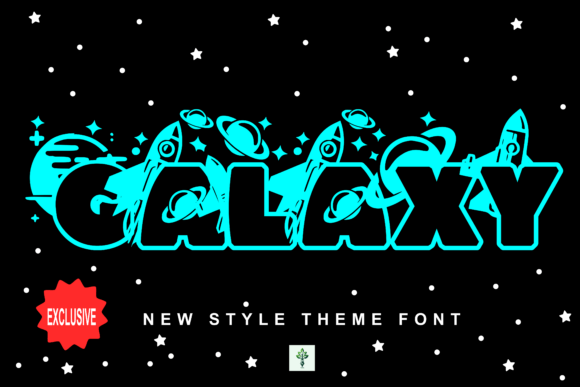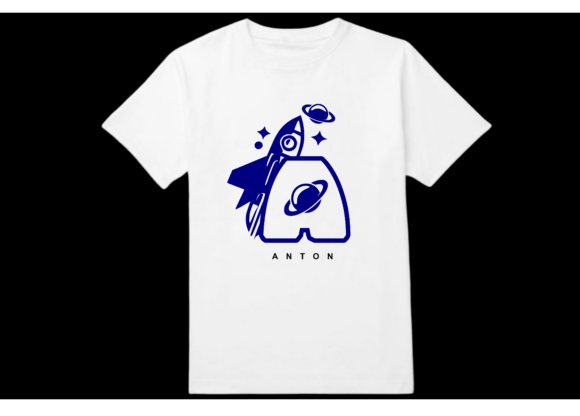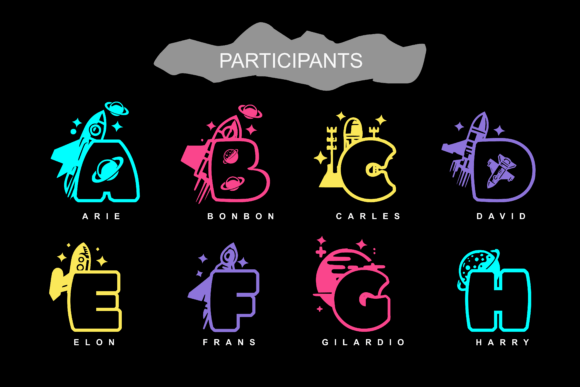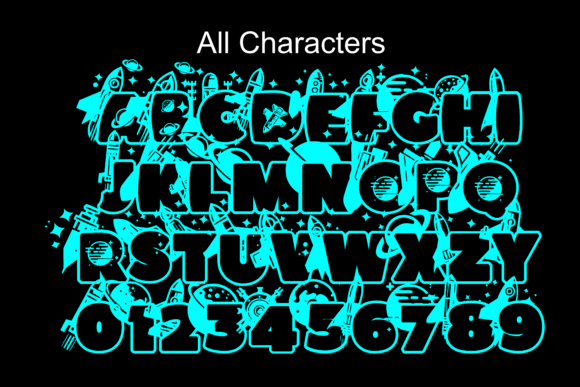
Unlock the Magic of Galaxy Font
Have you ever found yourself scrolling through a design portfolio, mesmerized by a project that exudes an undeniable charm and charisma? That’s the power of a well-crafted font – one that can elevate a design from ordinary to extraordinary. For designers seeking to infuse their creations with a unique, sun-kissed essence, look no further than the Galaxy Font.
This expertly devised font is designed to transport your projects to a world of warmth and vibrancy, where the carefree spirit of summer reigns supreme. By incorporating the Galaxy Font into your designs, you’ll be able to tap into its symbolic energy and breathe new life into your projects. Whether you’re a seasoned designer or just starting out, the Galaxy Font is an invaluable asset that will help you take your work to new heights.
Galaxy Font Key Features
- Font Family: Galaxy Font is a sans-serif font family designed for use in digital applications, including mobile and web interfaces.
- Resolution: Galaxy Font is designed to be highly legible at high resolutions, making it ideal for use in high-resolution displays such as Retina displays.
- Unique Characteristics: Galaxy Font features a unique blend of geometric and organic shapes, giving it a distinctive and modern aesthetic.
- Language Support: Galaxy Font supports a wide range of languages, including Latin, Cyrillic, Greek, and many others, making it a versatile choice for global applications.
Galaxy Font Review
When I first laid eyes on Galaxy Font, I was blown away by its unique, cosmic design ✨. The combination of geometric shapes and fluid lines creates a truly out-of-this-world aesthetic. The font’s versatility shines through in its various styles, from bold and playful to elegant and sophisticated.
- ✨ Unique design that sets it apart from other fonts
- ✨ Versatile and adaptable to various styles and applications
- ✨ Excellent for creating eye-catching headlines and titles
However, there are some limitations to consider ⚠️. The font’s complexity can make it difficult to read at smaller sizes, and some characters may not be as smooth as others. Additionally, the font’s extraterrestrial feel may not be to everyone’s taste.
Limited Editions
- ⚠️ May not be suitable for body text due to readability issues
- ⚠️ Some characters may not be as refined as others
Overall, Galaxy Font is a stunning addition to any designer’s toolkit. While it may not be perfect, its bold personality and versatility make it a great choice for anyone looking to add some cosmic flair to their designs.
Use Galaxy Font for titles, headings, and emphasis in your designs.
Combine Galaxy Font with other fonts to create a unique and visually appealing typography style.
Experiment with different font sizes and styles to add depth and hierarchy to your text elements.
Galaxy Font is ideal for:
Sci-fi and futuristic designs
Space-themed projects
Modern and minimalist designs
Creating a sense of depth and dimensionality in your text elements
Alternatives to Galaxy Font
Montserrat is a sans-serif font that is highly legible and versatile. It is suitable for digital and print materials, such as websites, magazines, and advertisements. Montserrat is more geometric and modern compared to Galaxy Font, making it a great choice for contemporary designs. It is also highly customizable, allowing designers to adjust its width and weight to suit their needs.
Great Vibes is a modern script font that is perfect for creating a friendly and approachable atmosphere. It is ideal for use in titles, headings, and body text in designs that require a touch of elegance and sophistication. Great Vibes is more elegant and refined compared to Galaxy Font, making it a great choice for luxury brands and high-end designs.
Open Sans is a clean and modern sans-serif font that is highly legible and versatile. It is suitable for use in digital materials, such as websites, mobile apps, and e-books. Open Sans is more minimalist and neutral compared to Galaxy Font, making it a great choice for designs that require a clean and simple aesthetic.